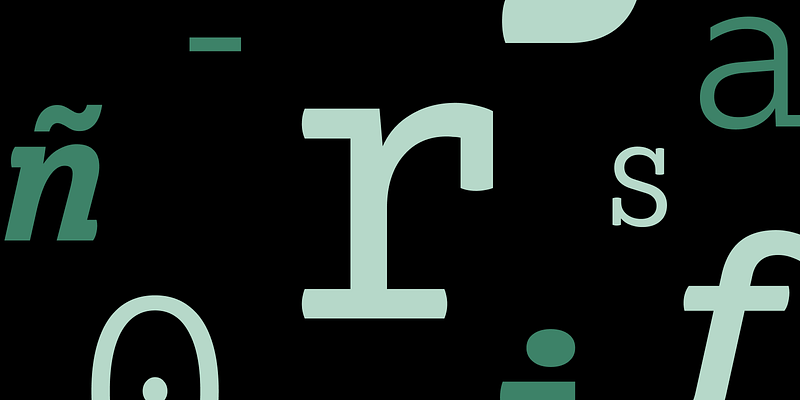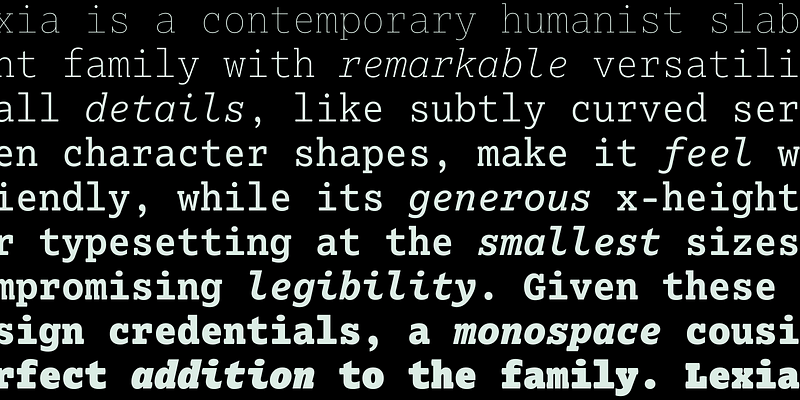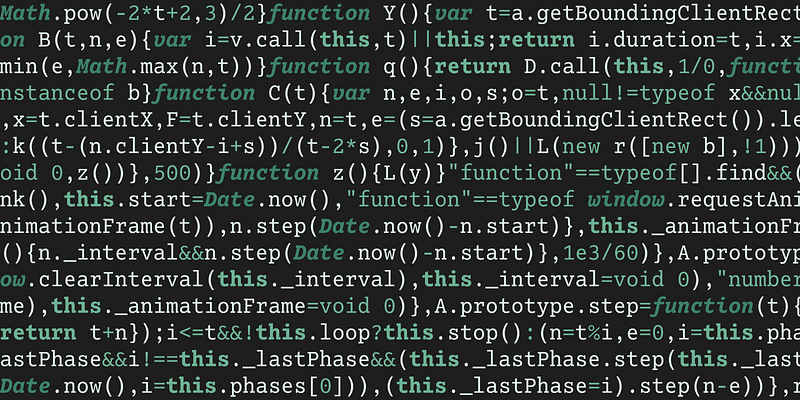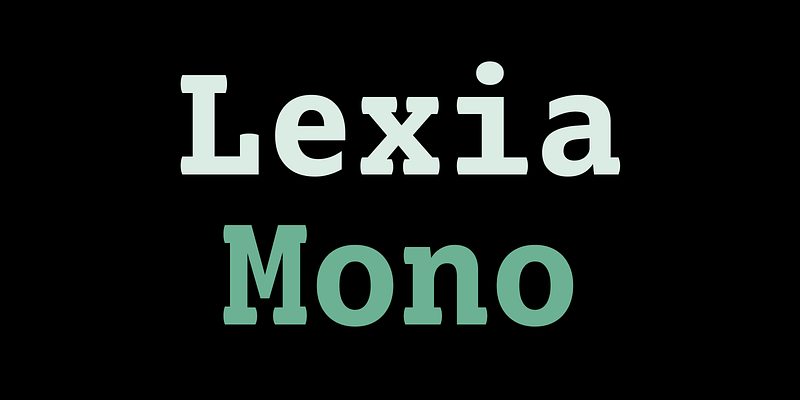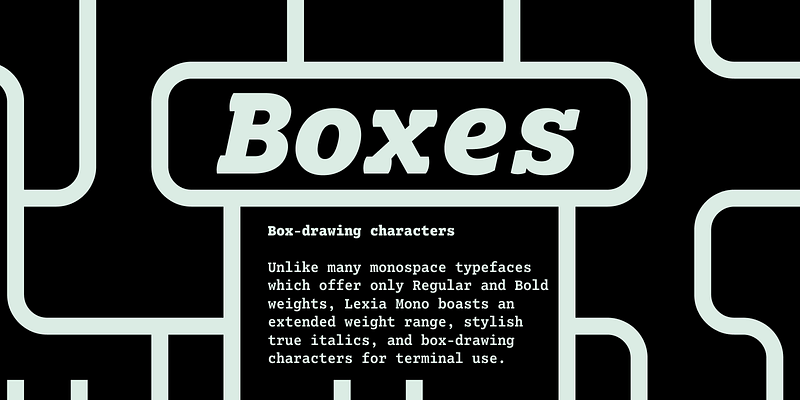
Lexia Mono, Lexia’s monospace cousin, was designed for programmers and those who work with tough compositional issues. Its clean, uninterrupted rhythm and even colour make it remarkably easy to read